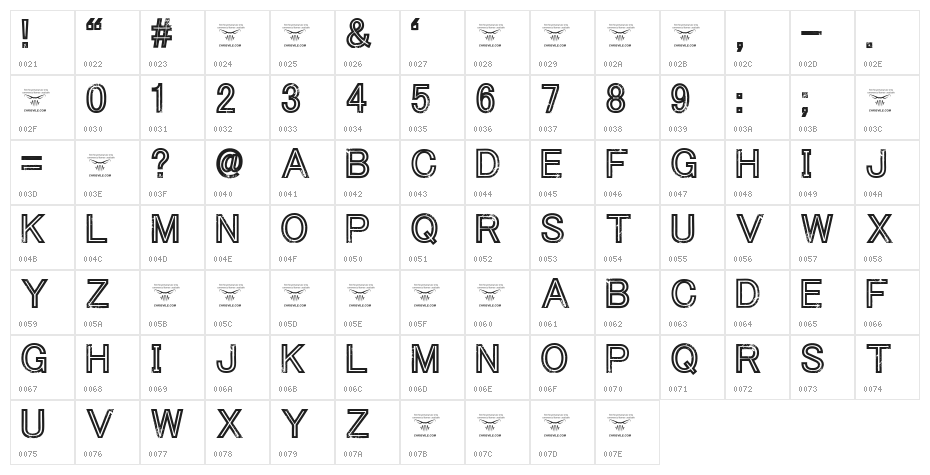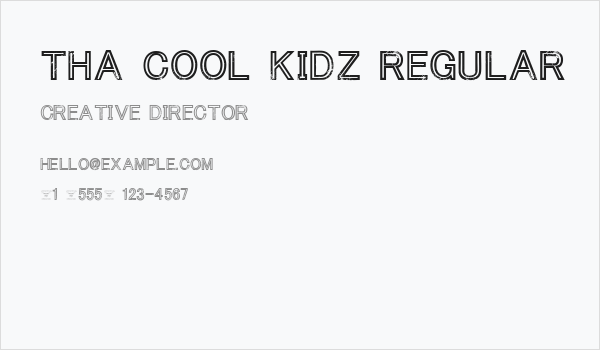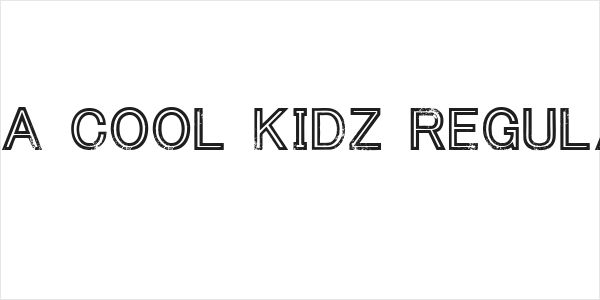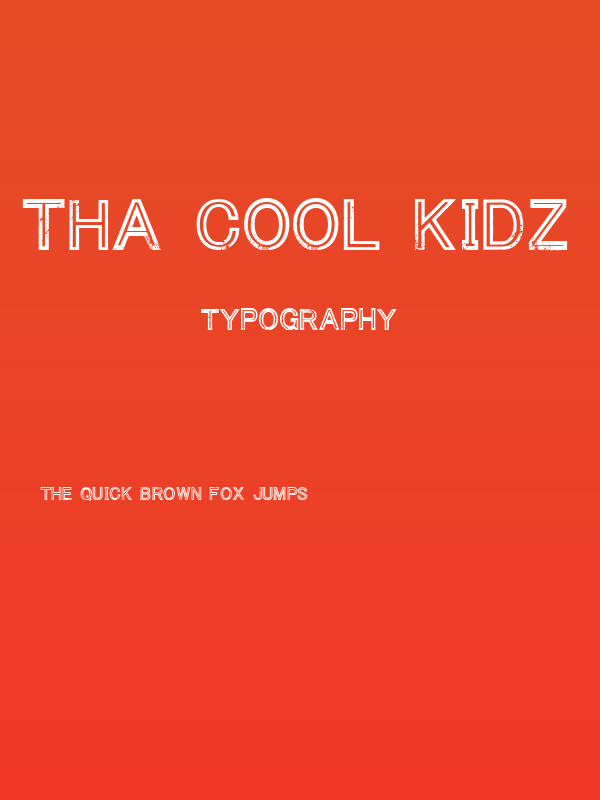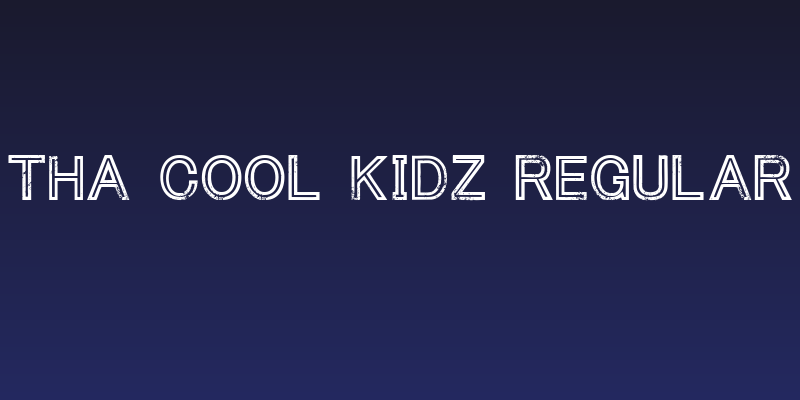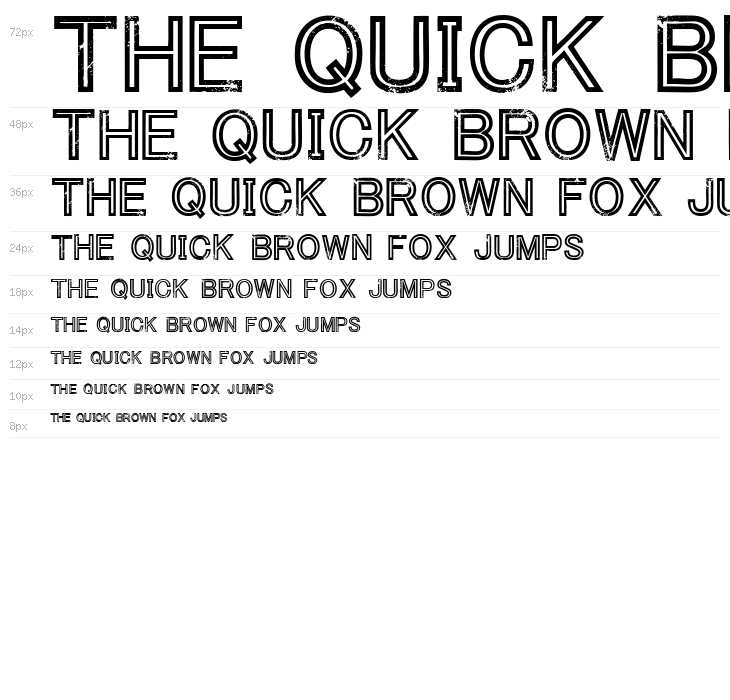
Tha Cool Kidz Regular Font
Tha Cool Kidz Regular Description
This font features a distressed, grunge style with a bold, impactful presence. The characters are uppercase and numerals, each with a textured, worn appearance that gives a rugged, urban feel. The design is reminiscent of street art or graffiti, with a strong emphasis on individuality and expression. The letters are well-defined with a consistent thickness, yet the distressed effect adds a layer of complexity and visual interest. This font is perfect for projects that require a bold statement or an edgy, contemporary look.
| Overall Style | Urban, Grunge, Edgy |
| Proposed Projects | Ideal for album covers, streetwear branding, posters, and urban-themed designs. |